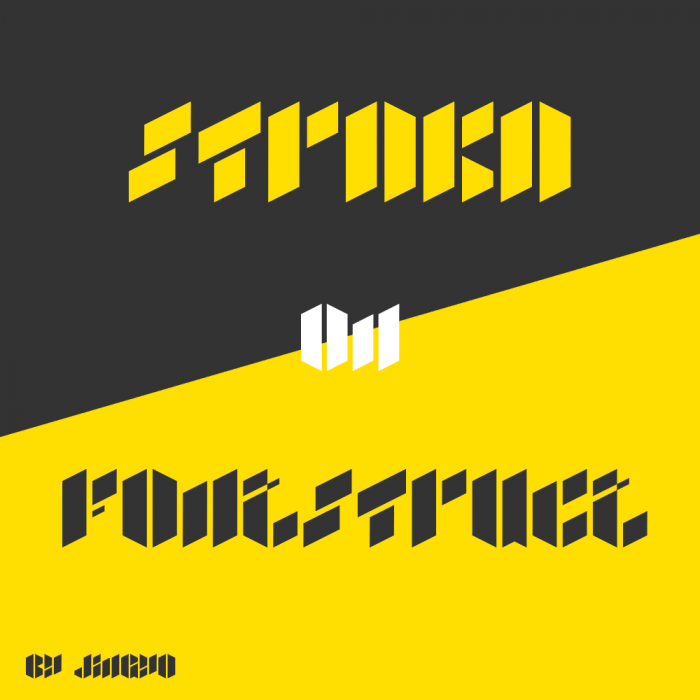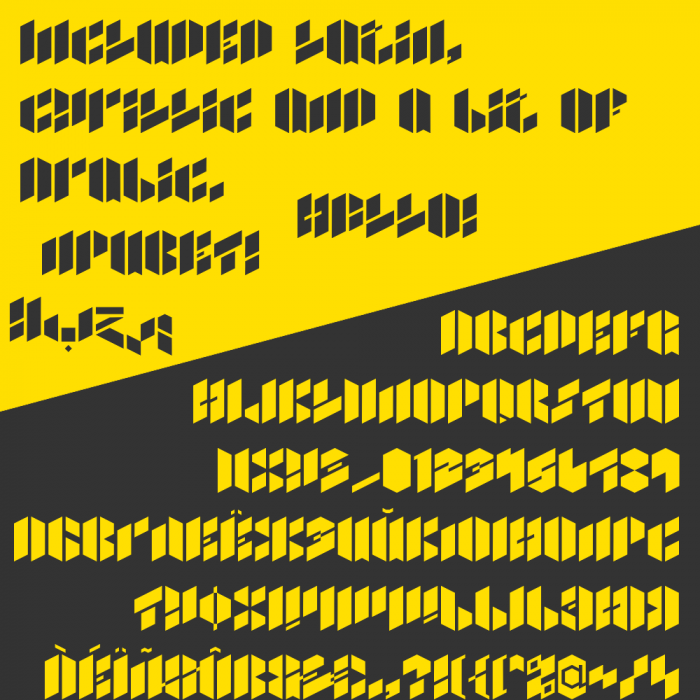
• This was a simple idea started from S and T. Most of the glyphs have two verticle strokes that are 4-bricke-wide and a 1-brick-wide area in the middle of the character. except I, L, S and T (actually a lot more). They are a bit different. Especially S, T and L. The whole characters are only 8 bricks wide. As I mentioned above, It's because the whole font started from these characters.
Straka the name came from last name of a person. The S and T reminds me of this person's last name. I like this last name although I don't even know him.
About the Latin extension, I have made only the glyphs that require no new design, just diacritics and already made letters. So I can pretend like hard-working on fonts but copy paste in reality. :P
Also, I made Arabic glyphs. Only isolated forms. Which I suppose won't be a comfortable experience to Arabic users. It's like every letter has crazy swashes but every letters are lightyears away from each other.(or is it?)
Straka supports Latin, Cyrillic and Arabic
Great samples! ;-) Are the diacritics a bit small?